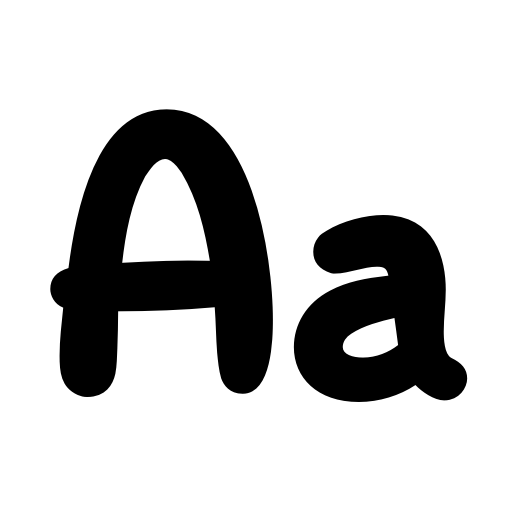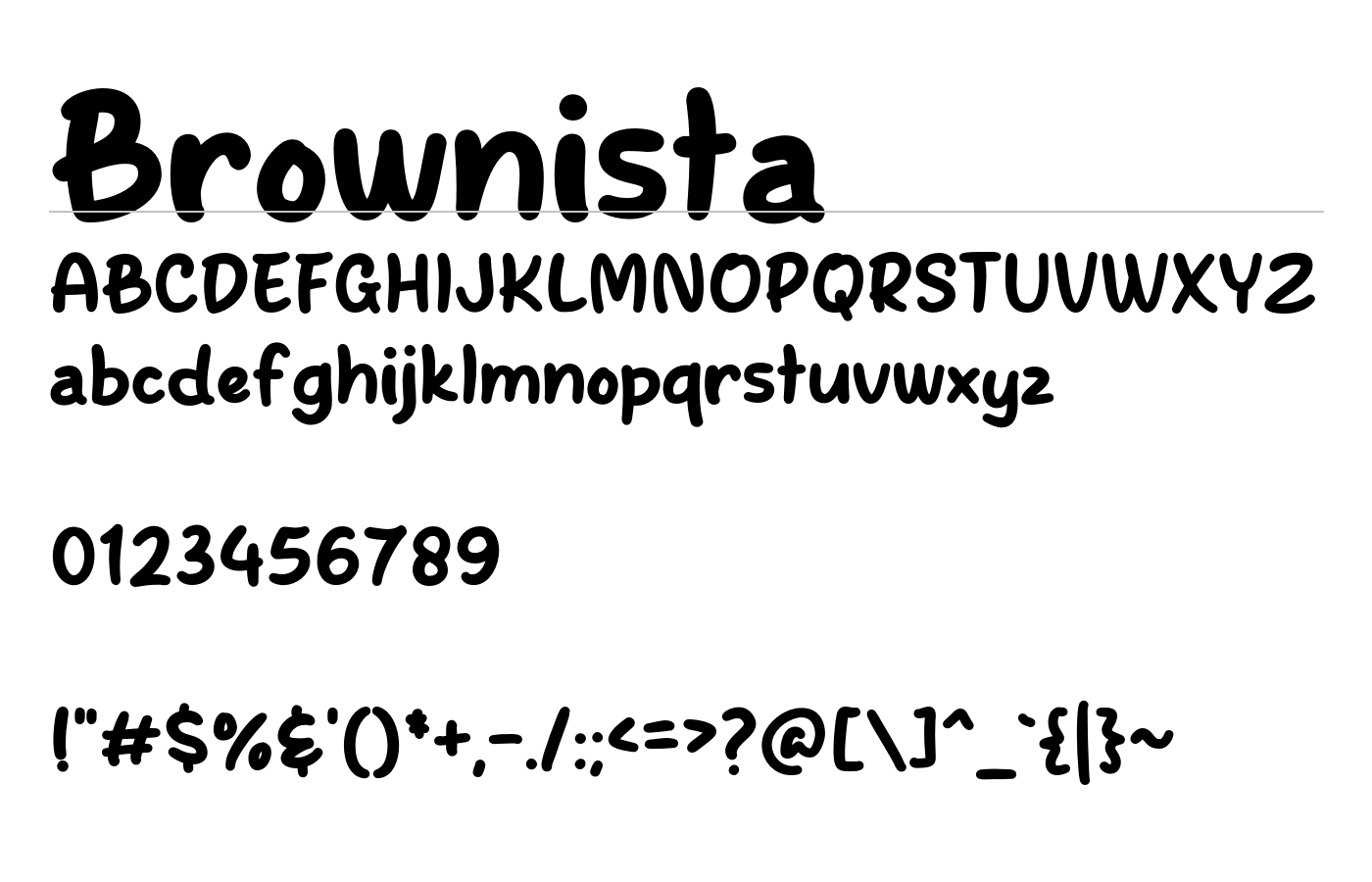
Brownista is a playful and casual handwritten sans serif font with rounded, bold strokes and a friendly, approachable personality. Its slightly irregular letterforms and moderate x-height give it an informal, fun feel that works well for creative projects, children’s materials, and branding that aims to be warm and inviting. This font is best suited for headlines, logos, and packaging where a relaxed and personable tone is desired.
Brownista Font
About Brownista Font
| Font family | Brownista Font |